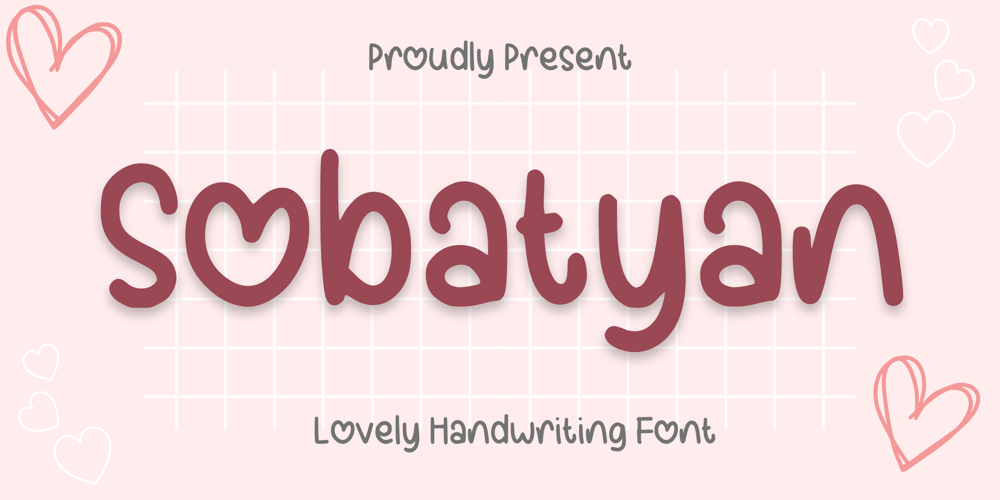
Sobatyan Font Family was designed by Nur Aiysah Amalia and published by Aisyah. Sobatyan contains 1 styles and family package options. Sobatyan Lovely Handwriting is perfect for creating designs for weddings, love letters, invitations, branding, and more. This font includes uppercase and lowercase letters, numerals, and punctuation.Sobatyan Lovely Handwriting is a beautiful and versatile font that can add a touch of romance and elegance to any design project